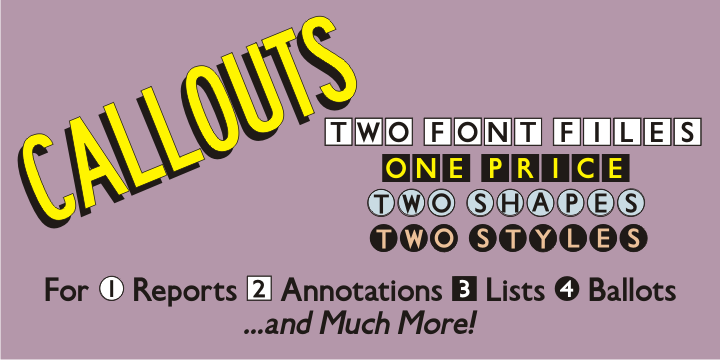
Callouts JNL is a dingbat, novelty and kids font family. This typeface has two styles and was published by Jeff Levine Fonts.
Callouts JNL is two type fonts, two variations and one price for both. These alphabets and numbers can be used for indicating paragraphs, annotations, lists, ballots and so forth.
The capital keys and the regular number positions are the black on white version, while the lower case keys and the shift position on the number keys is the white on black style.